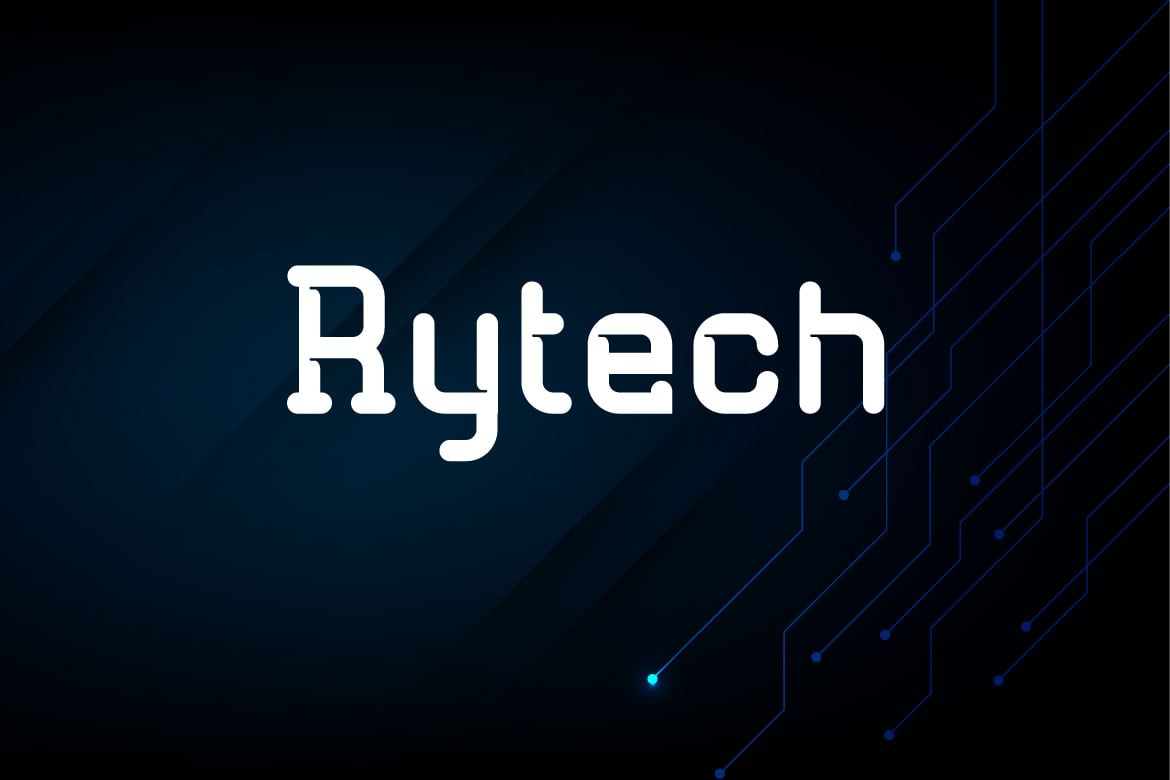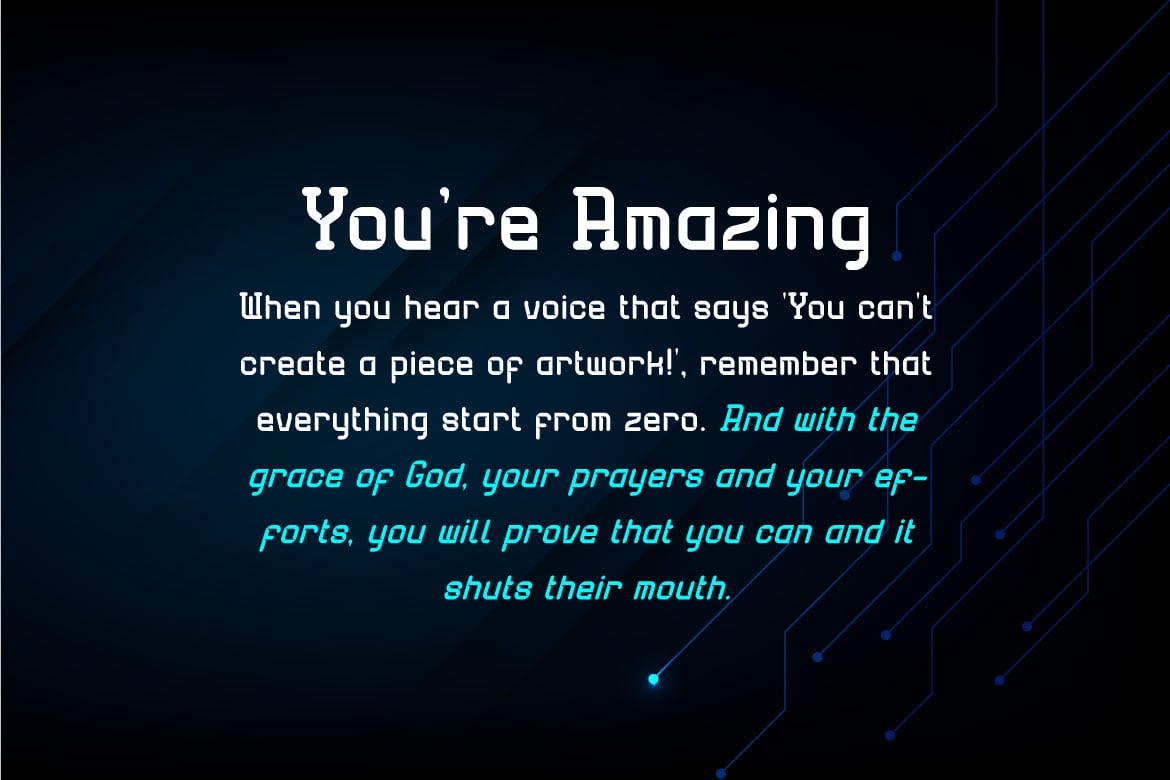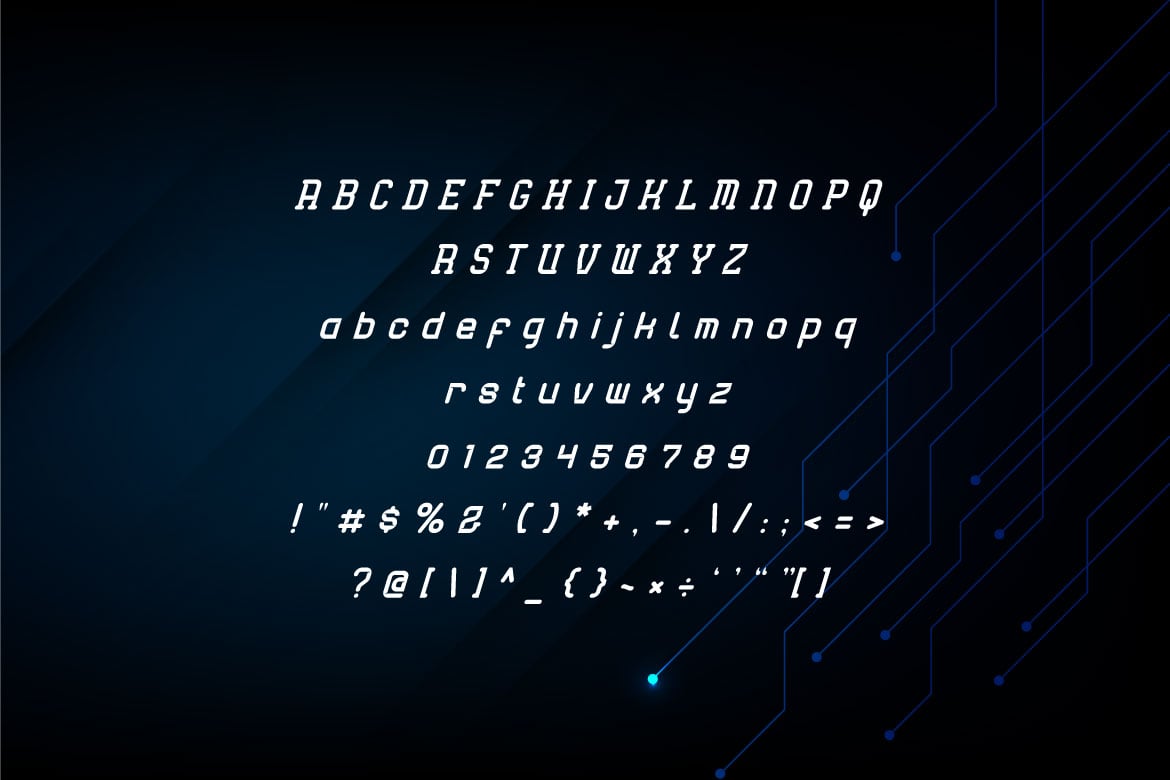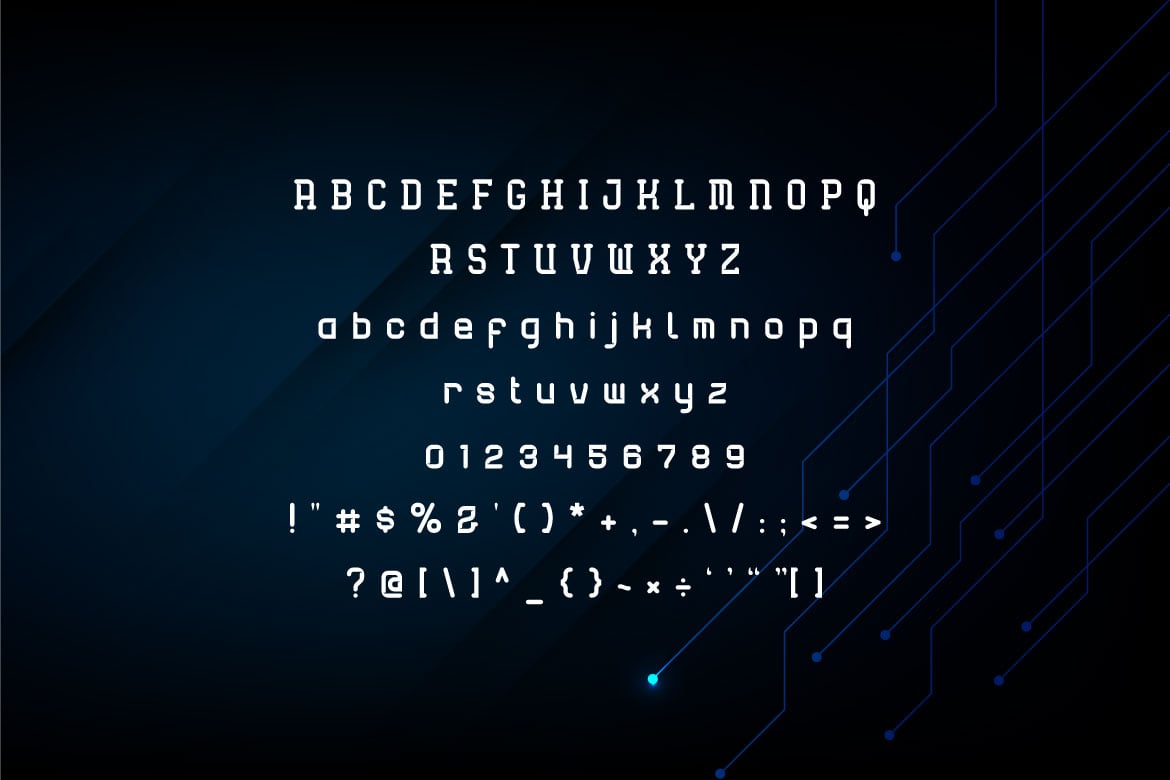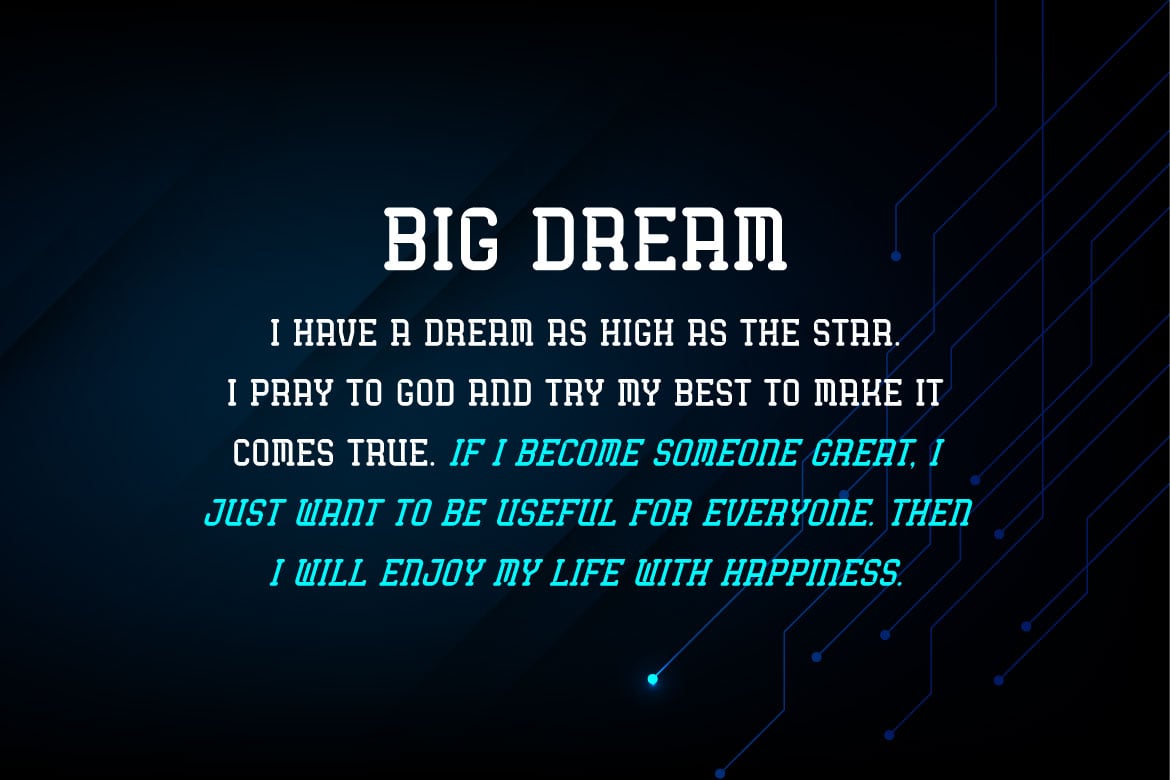
Rytech – Technology Digital Display Font
Hello! Rytech is a modern technology font.
Rytech can be used in any works such as flyer, book title, advertisement, social media content, logo and many more.